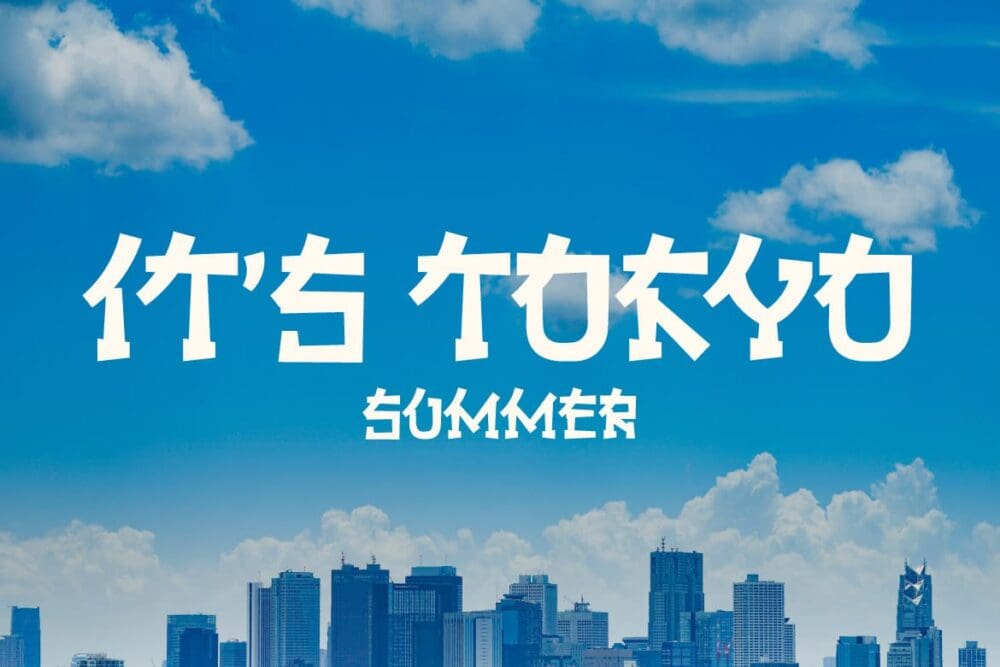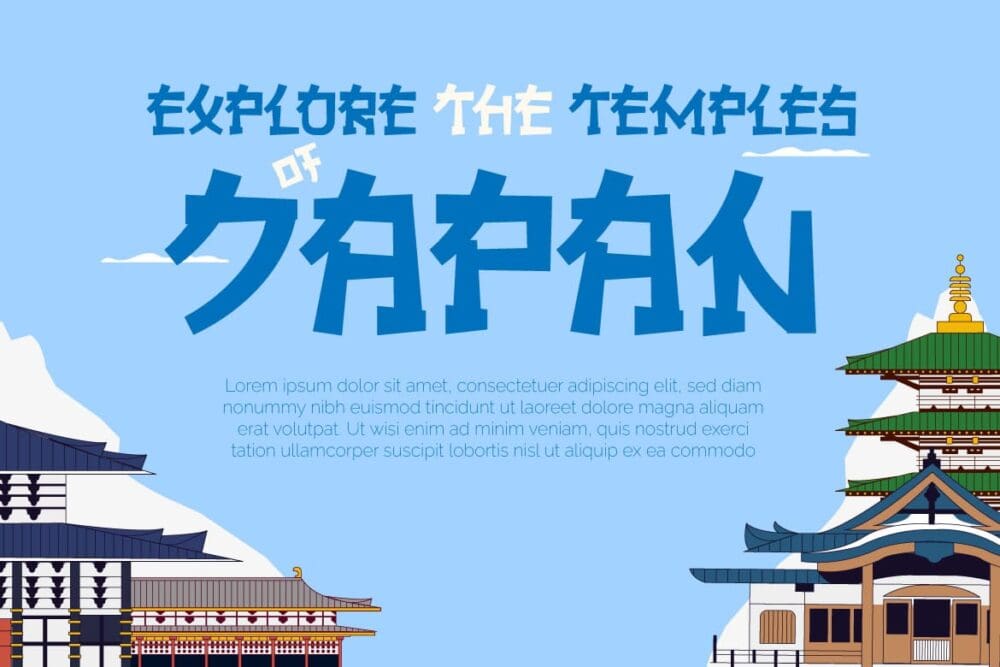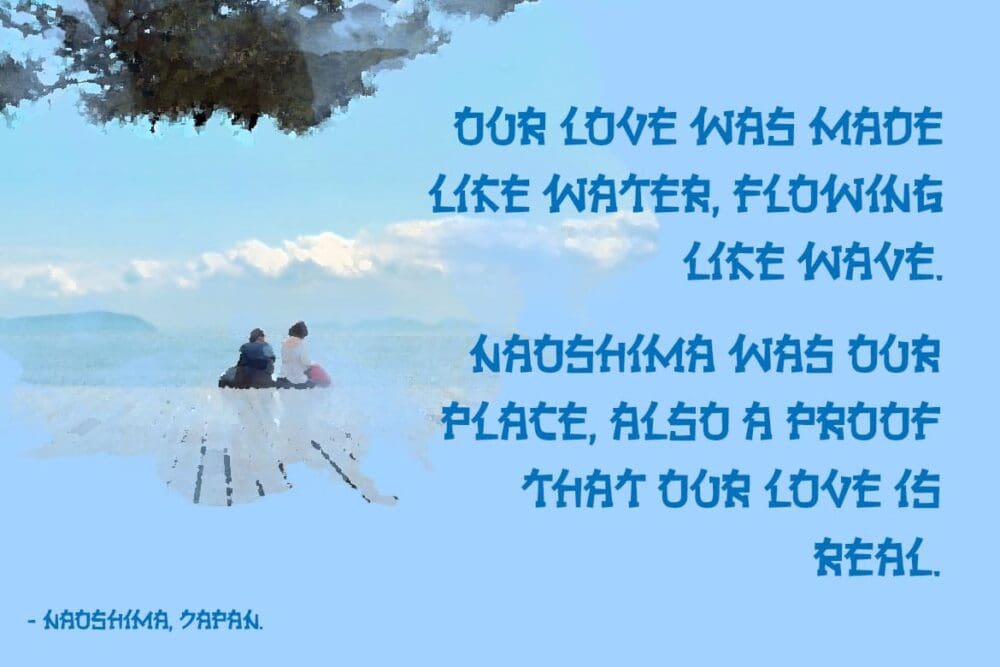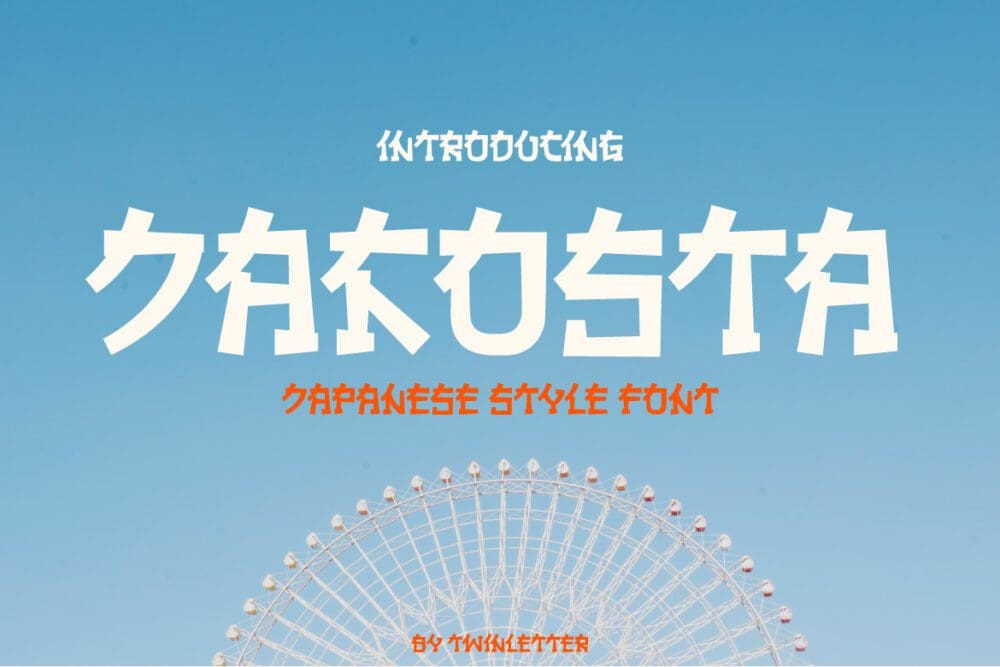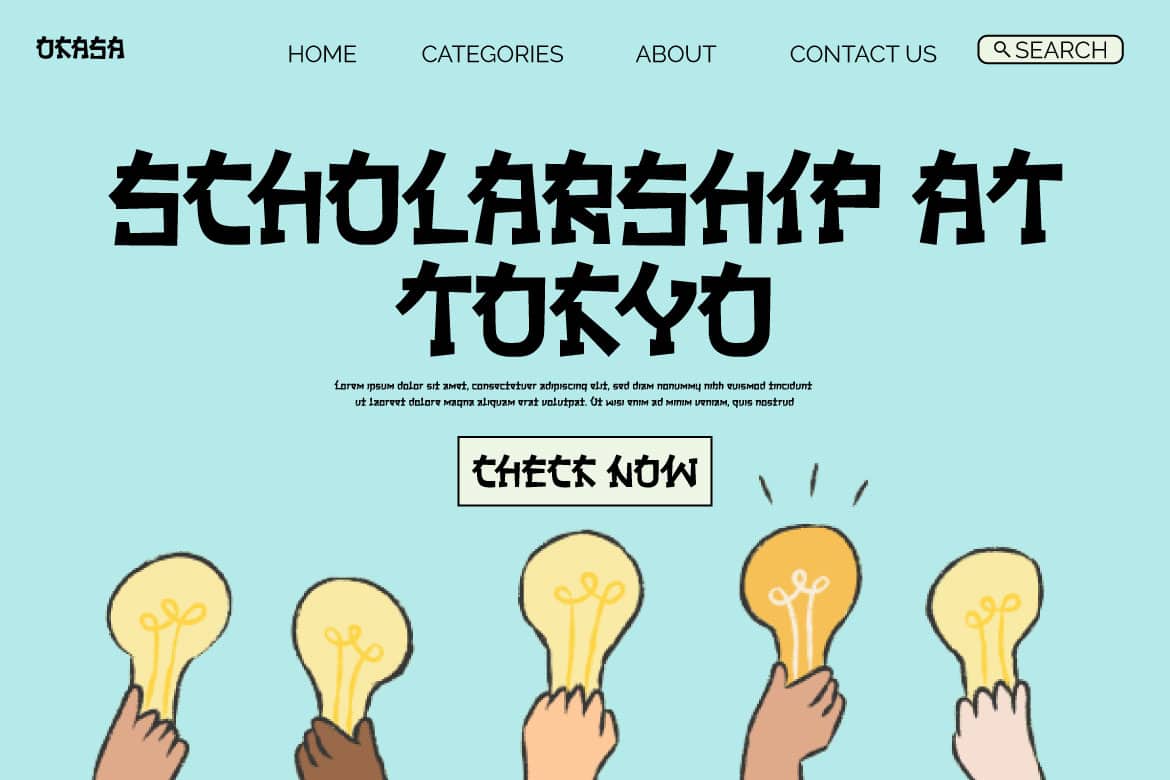
Jakosta Font
We introduce Jakosta, a one-of-a-kind Japanese-themed Display Font. This font was created by paying close attention to each letter shape to make it as natural as possible, similar to a Japanese font, while still prioritizing letterforms that are easy to read and understand by the audience so that all of your projects will become projects that are easy to remember and understand by anyone from anywhere in the world. Anywhere Logotypes, food banners, branding, brochure, posters, movie titles, book titles, quotes, and more may all benefit from this font. Of course, using this font in your various design projects will make them excellent and outstanding; many viewers are drawn to the striking and unusual graphic display. Start utilizing this typeface in your projects to make them stand out.